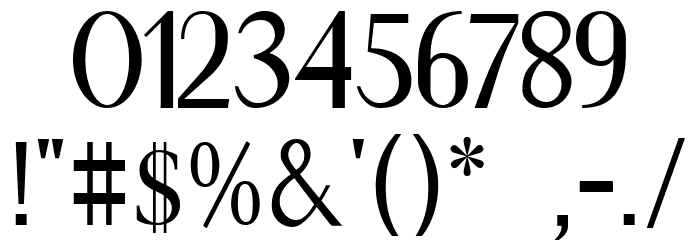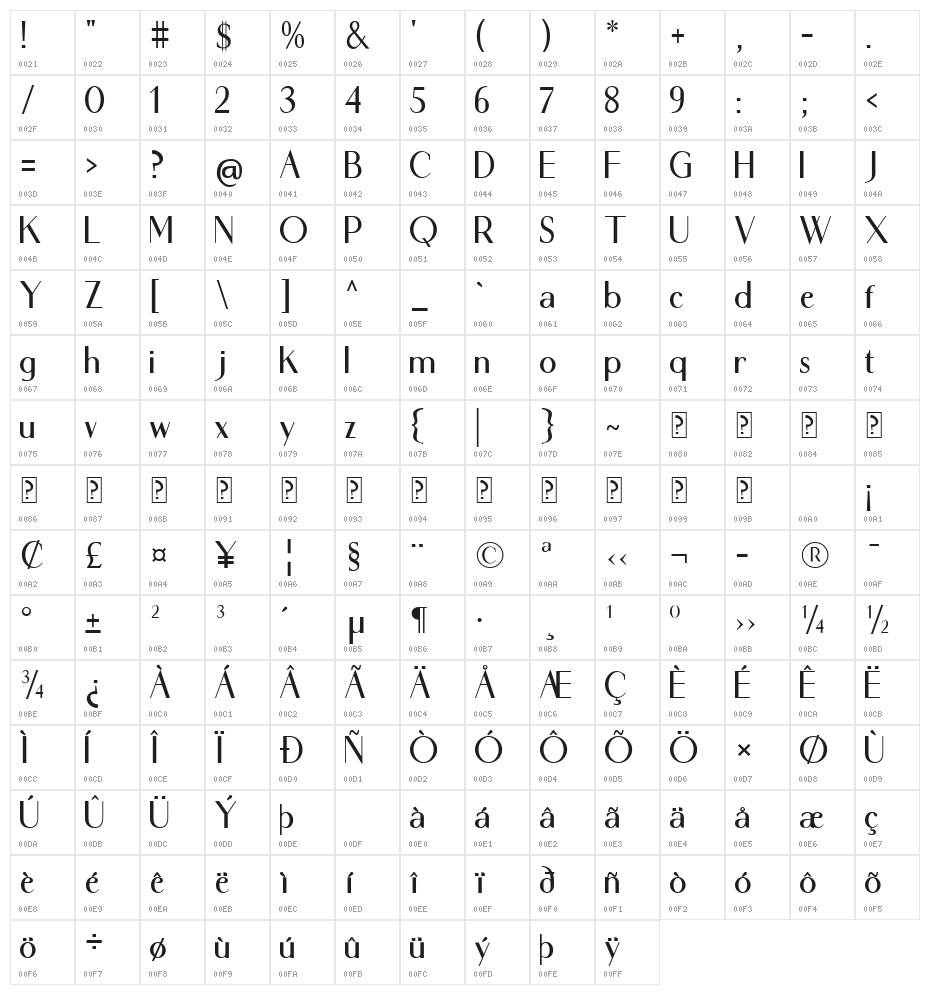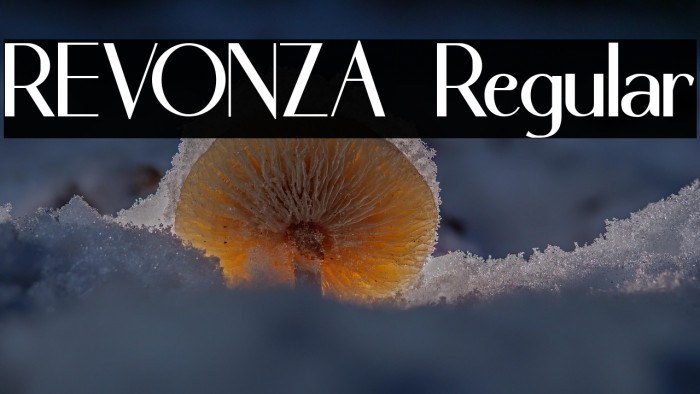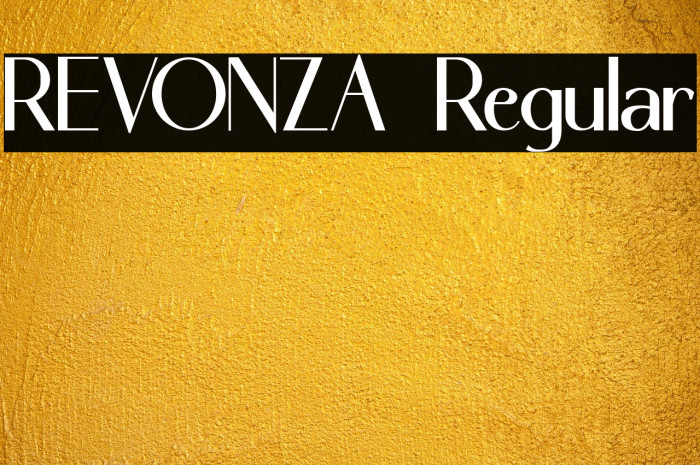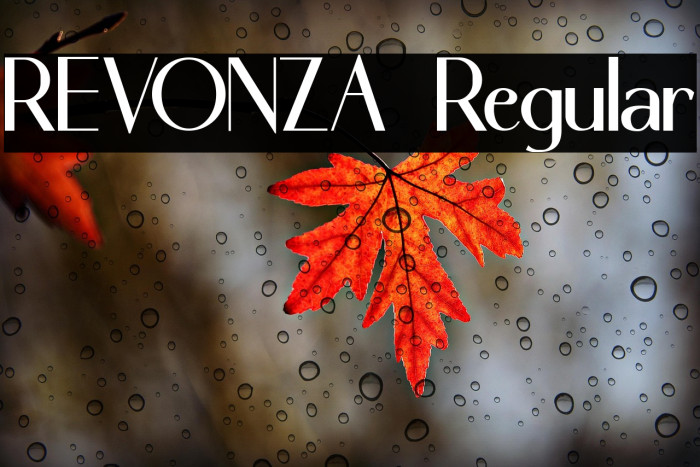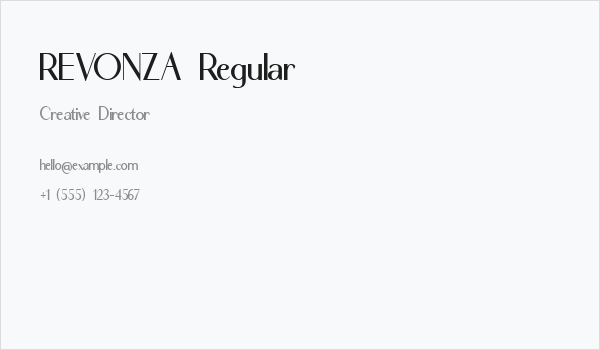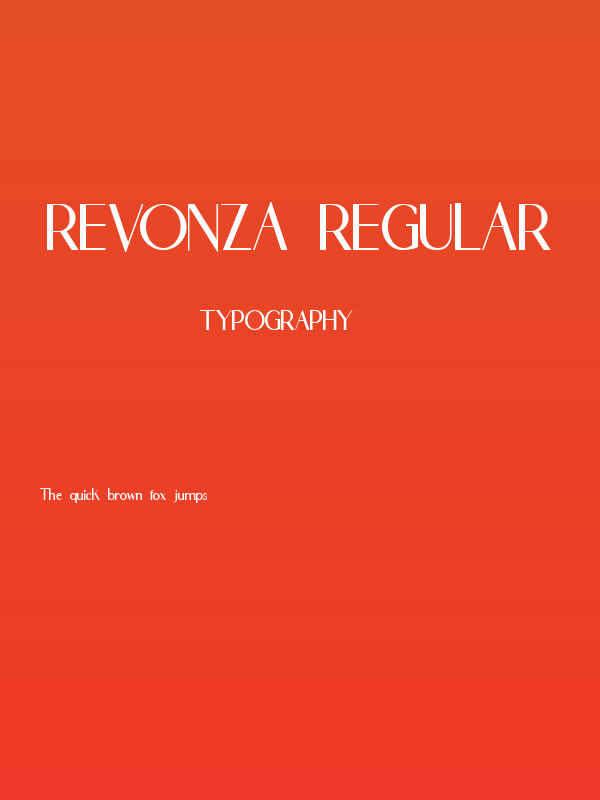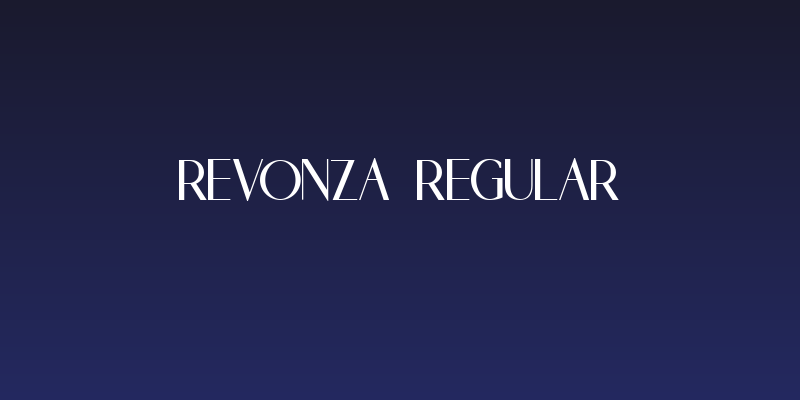
REVONZA Regular Font
REVONZA Regular Description
This font features a modern and elegant design with clean lines and a sophisticated appearance. The uppercase letters are tall and slender, with a slight contrast in stroke thickness that adds a touch of refinement. The lowercase letters maintain a consistent style, offering a harmonious blend of curves and straight lines. The numerals are clear and easy to read, making them suitable for various applications. Special characters are well-designed, ensuring versatility in usage. Overall, this font exudes a contemporary feel while maintaining a classic elegance, making it suitable for a wide range of design projects.